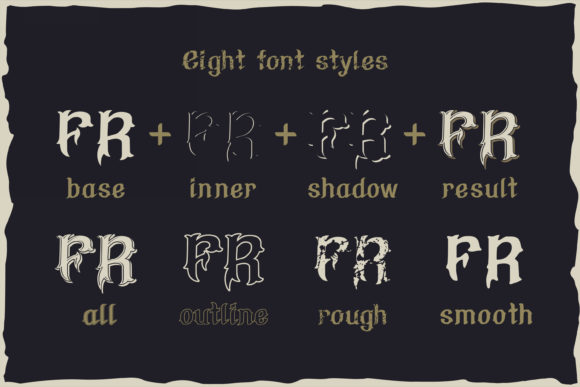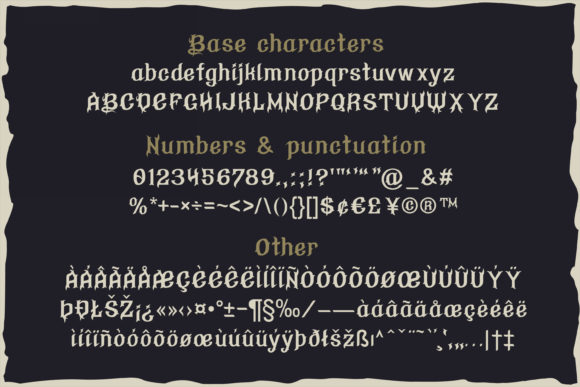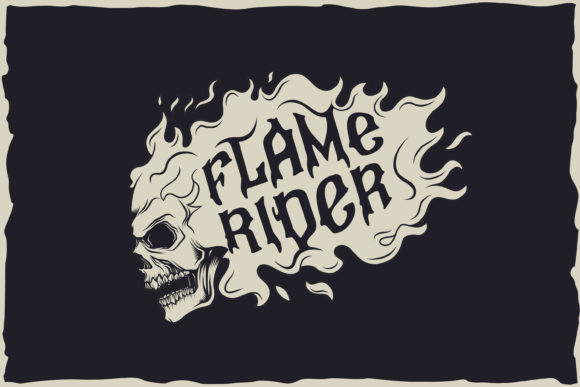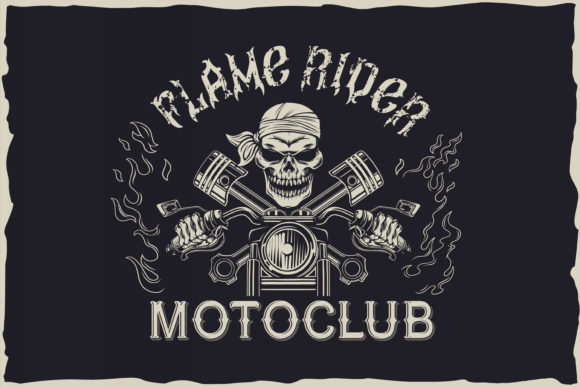
Unleash Your Creativity with Flame Rider Font: A Bold and Assertive Display Font
Are you looking for a font that can add a touch of boldness and assertiveness to your designs? Look no further than the Flame Rider Font. This cool and edgy display font is expertly designed to make your creations stand out from the crowd and leave a lasting impression. In this article, we’ll take a closer look at the Flame Rider Font, its features, and how you can use it to take your designs to the next level.
What is Flame Rider Font?
Flame Rider Font is a bold and assertive display font that is perfect for designers who want to add a touch of edginess to their creations. With its unique and imposing design, this font is sure to grab attention and make your designs look out of this world. Whether you’re working on a branding project, creating labels, or designing logos, Flame Rider Font is the perfect choice.
Key Features of Flame Rider Font
So, what makes Flame Rider Font so special? Here are some of its key features:
- Bold and Assertive: Flame Rider Font is designed to make a statement. Its bold and assertive design ensures that your creations will stand out from the crowd.
- Unique Design: This font has a unique design that is sure to grab attention. Its edgy and cool design makes it perfect for designers who want to add a touch of boldness to their creations.
- Versatile: Flame Rider Font is versatile and can be used on a variety of projects, including branding, labeling, logos, and more.
- Easily Readable: Despite its bold design, Flame Rider Font is easily readable, making it perfect for use on a variety of mediums, including digital and print.
How to Use Flame Rider Font
So, how can you use Flame Rider Font in your designs? Here are some ideas to get you started:
- Branding: Use Flame Rider Font to create bold and eye-catching brand logos that will help your business stand out.
- Labeling: Add a touch of edginess to your labels with Flame Rider Font. It’s perfect for product labels, packaging, and more.
- Logos: Create unique and memorable logos with Flame Rider Font. Its bold design ensures that your logo will be noticed.
- Advertising: Use Flame Rider Font in your advertising materials, such as billboards, flyers, and brochures, to grab attention and make a statement.
Tips for Using Flame Rider Font
Here are some tips to keep in mind when using Flame Rider Font:
- Use it Sparingly: While Flame Rider Font is bold and assertive, it can be overwhelming if used too much. Use it sparingly to make a statement.
- Pair it with Other Fonts: Flame Rider Font pairs well with other fonts. Experiment with different font combinations to create a unique look.
- Consider the Medium: Consider the medium you’re using Flame Rider Font on. For example, it may be more effective on digital mediums than print.
| Font Name | Flame Rider Font |
| Author | Fractal font factory |
In conclusion, Flame Rider Font is a bold and assertive display font that is perfect for designers who want to add a touch of edginess to their creations. With its unique design, versatility, and ease of readability, this font is sure to make your designs stand out from the crowd. Whether you’re working on a branding project, creating labels, or designing logos, Flame Rider Font is the perfect choice. So why wait? Download Flame Rider Font today and unleash your creativity!